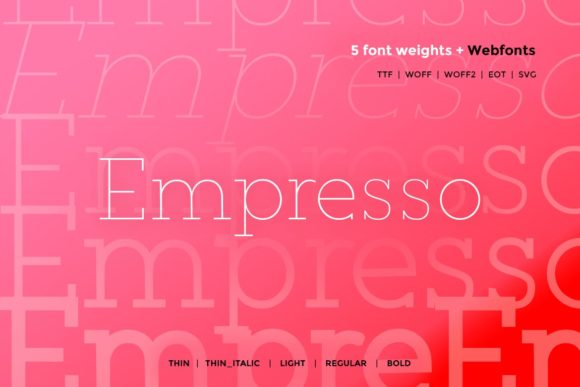
Empresso Font
Introducing Empresso, an extraordinary creation from Webhance, an iconic serif typeface that's sure to captivate your senses and take your designs to new heights. With its timeless beauty and versatility, Empresso is a force to be reckoned with in the world of typography.
Dive into the world of Empresso, where elegance and sophistication collide. Its Thin and Light weights are delicate and graceful, whispering your words with a touch of ethereal charm. For a touch of boldness and authority, Regular and Bold stand tall, conveying your message with unwavering confidence. And for those moments when you need a hint of intrigue, Thin_italic dances across the page, adding a touch of playful allure.
With Empresso, the possibilities are endless. Create stunning logos that command attention, design headers that leave a lasting impression, or craft elegant body text that enchants readers. Whether you're crafting a luxurious brand identity, a captivating website, or a memorable marketing campaign, Empresso will elevate your designs and make your words shine.
Embrace the timeless allure of Empresso and experience the joy of creating typography that resonates with your audience. Let Empresso be your muse, transforming ordinary words into extraordinary expressions. Unleash your creativity and make a statement with every design.